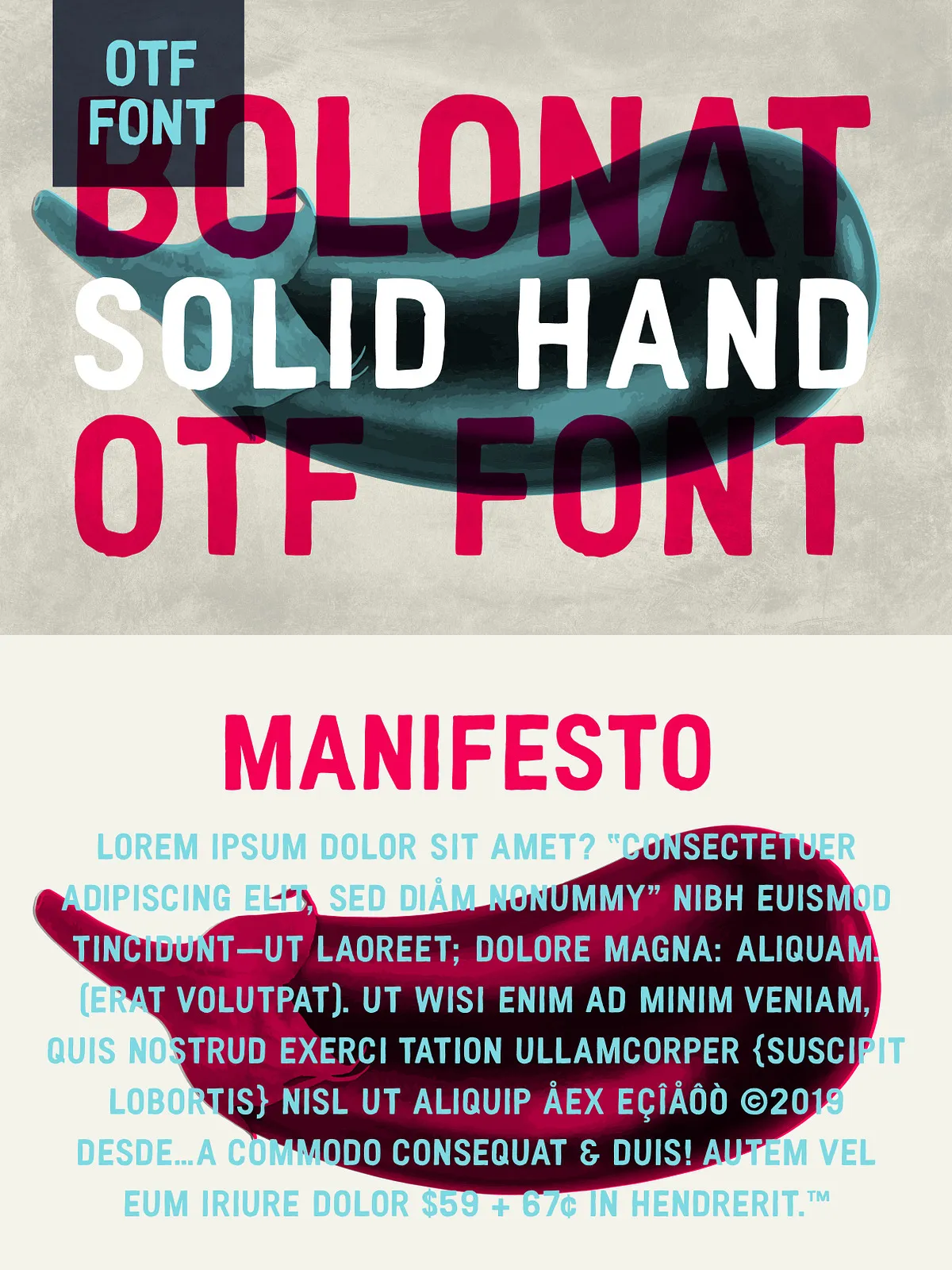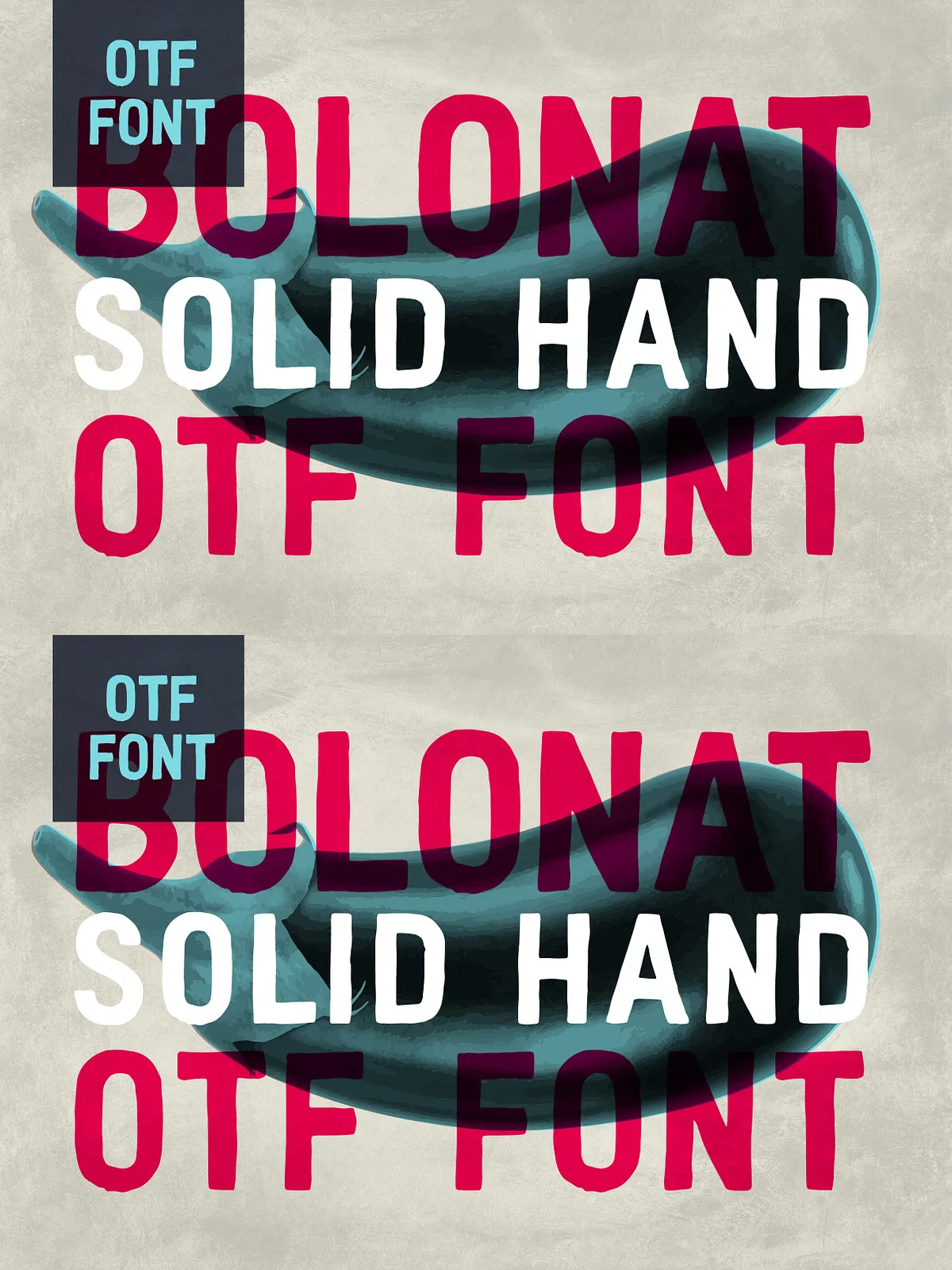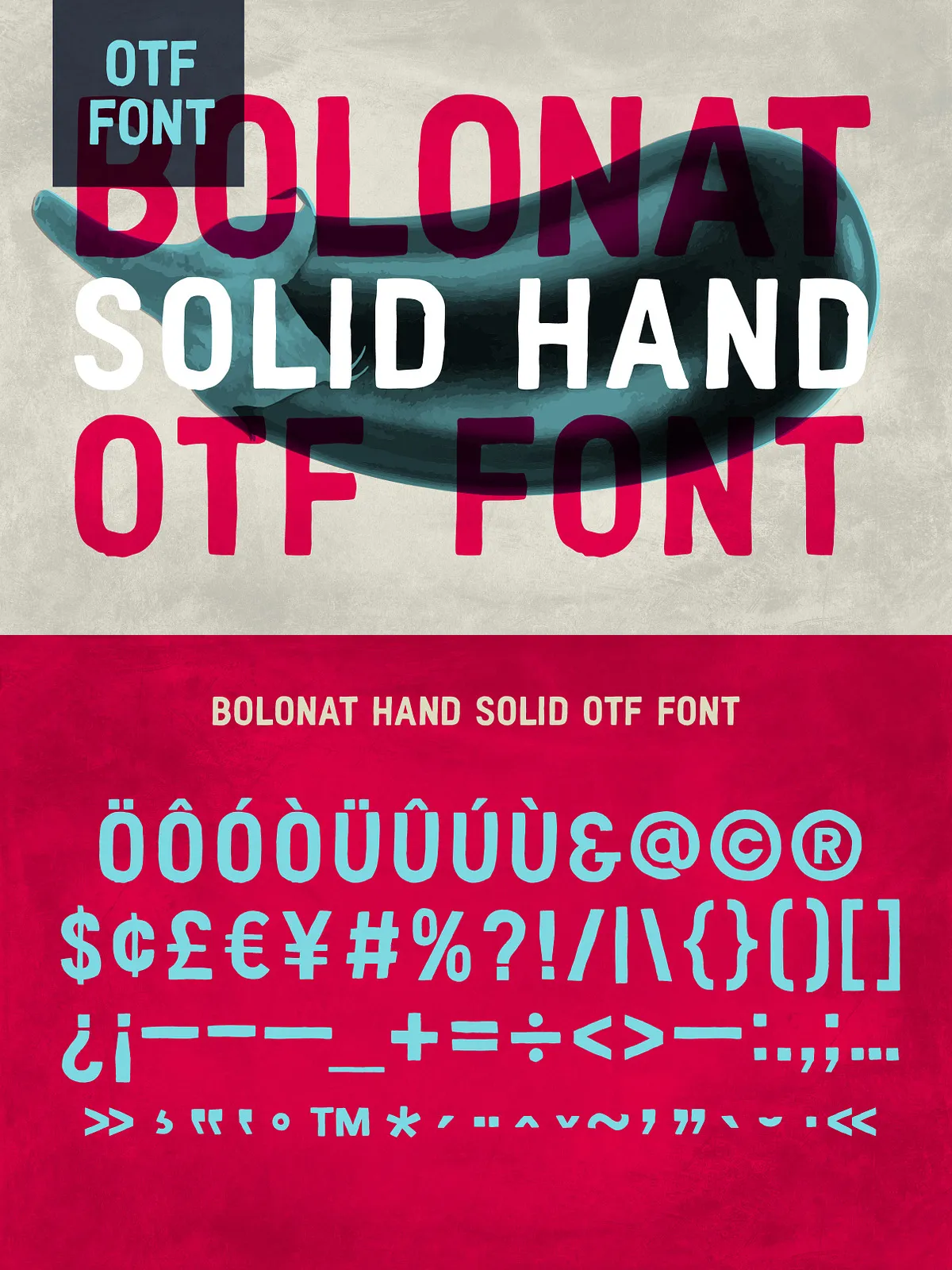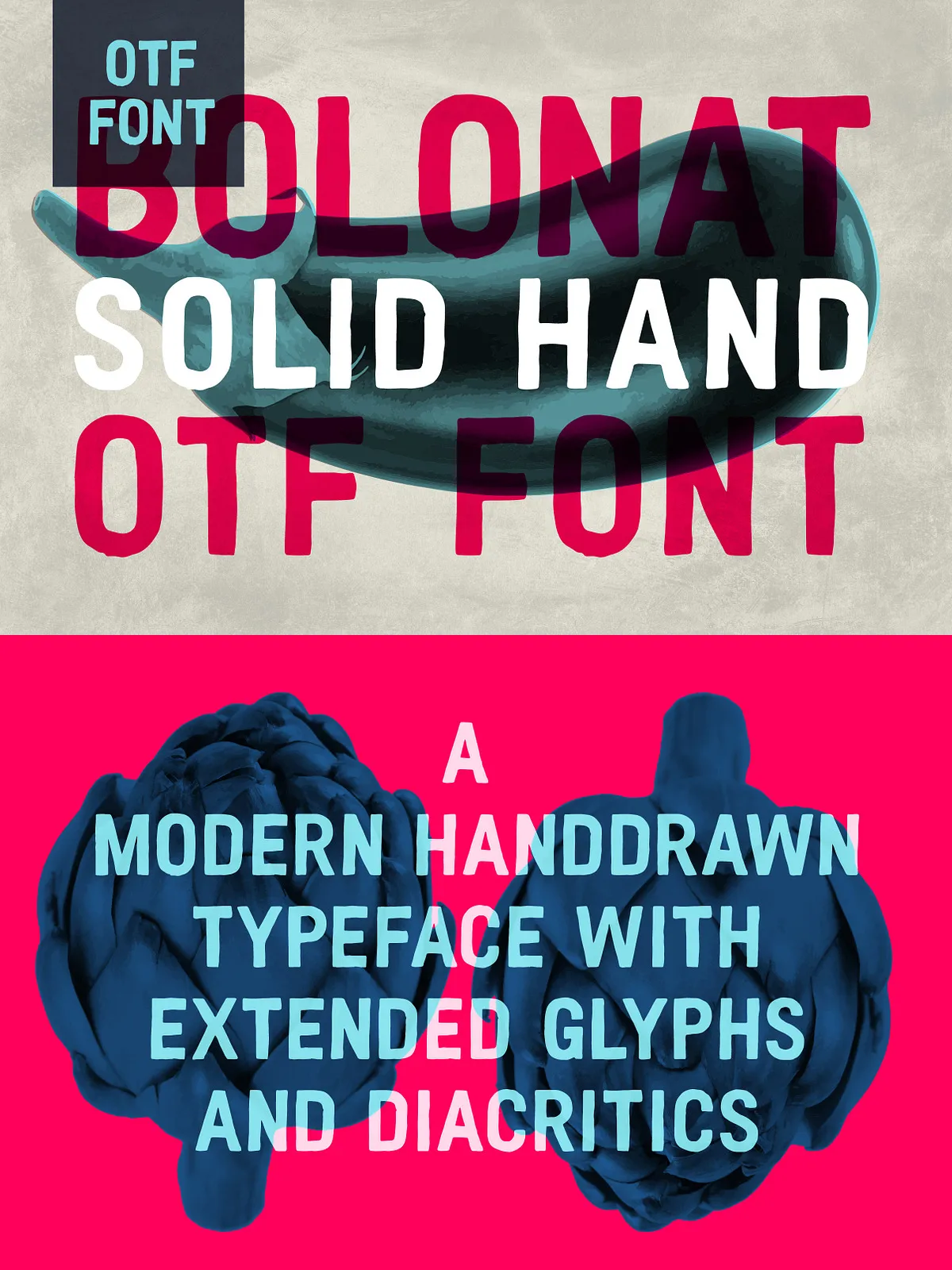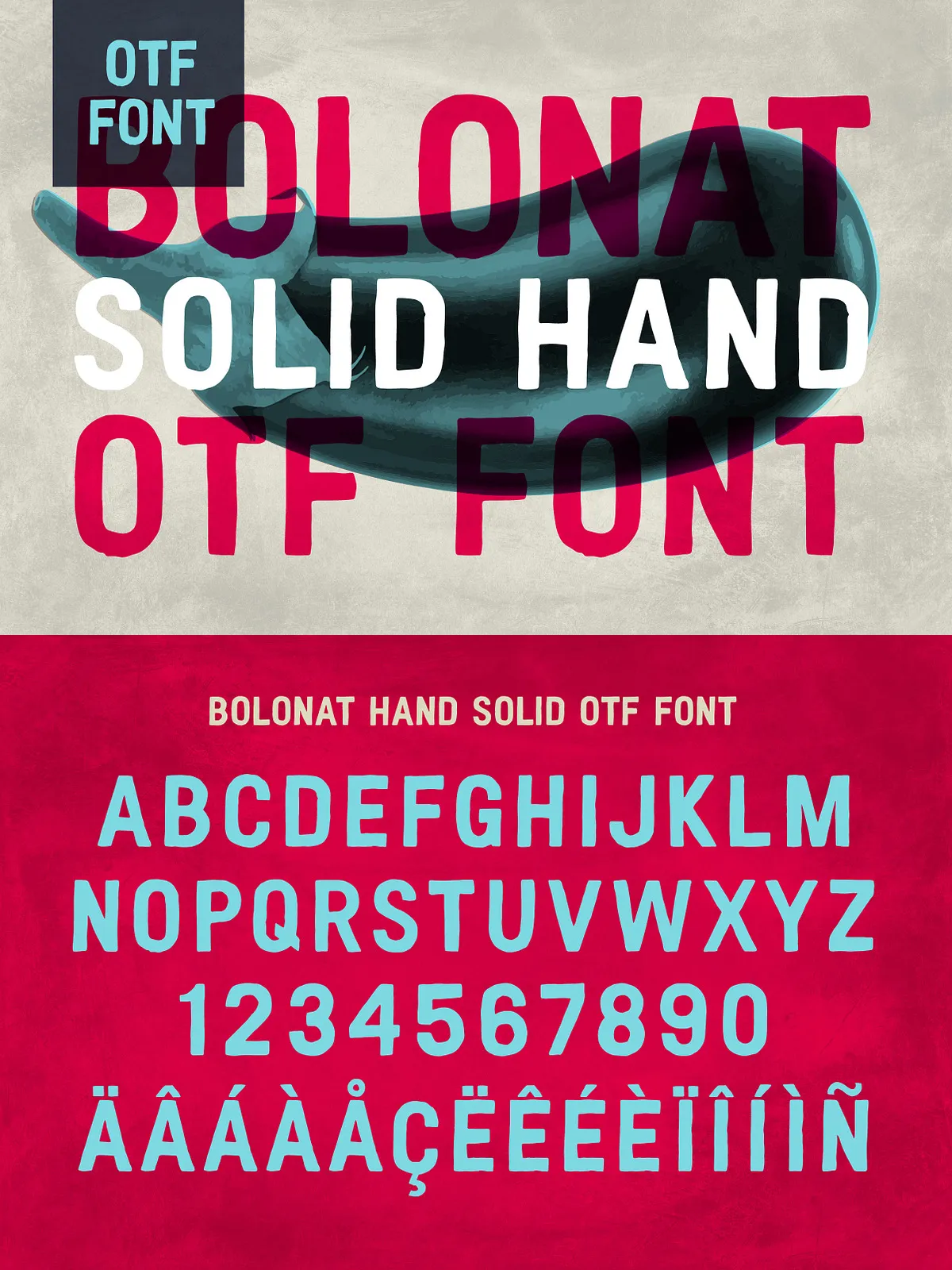
Bolonat Solid Hand OTF Font
Based on a hand-painted font I did for a restaurant in NYC, Bolonat Hand, is a solid OTF version of the original Ink Version I did previously. Pre-kerned and spaced, each glyph is user ready with a few characters needing kerning depending on end user preference.
Contains an extensive Diacritic Glyph palette and Punctuation marks.
THE BOLONAT FAMILY:
HAND – A solid version of the original watercolor glyphs with Extended Diacritics and Punctuation. (Included)